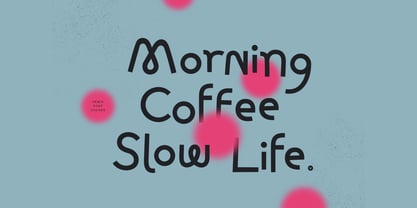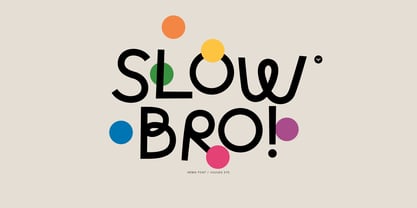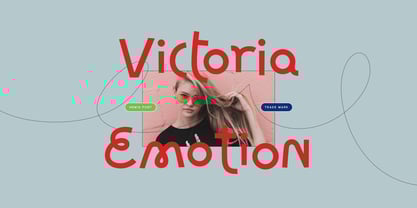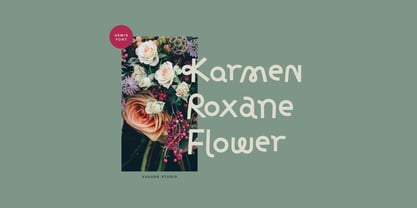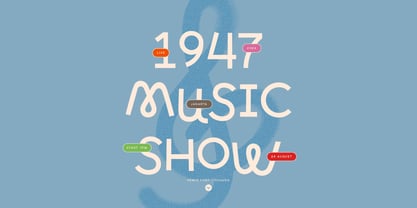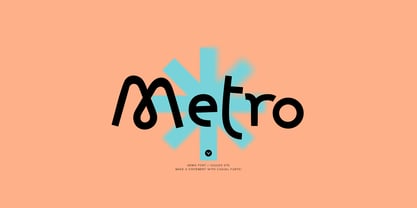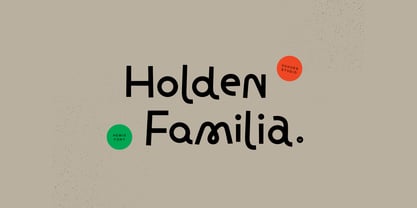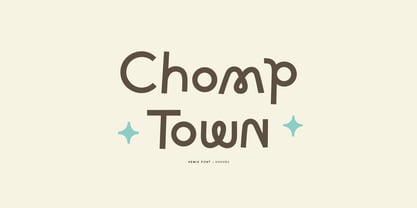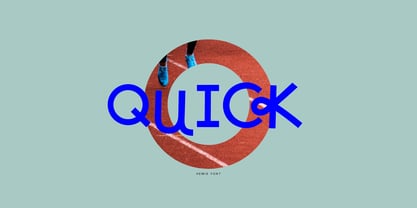
Hemis
by vuuuds
The Hemis Font Family was designed by Agung Syaifudin and published by vuuuds. Hemis contains 1 styles. More about this family
Introducing Hemis Font!
Hemis is casual modern sans serif font, every single letters have been uniquely crafted.
Designers: Agung Syaifudin
Foundry: vuuuds